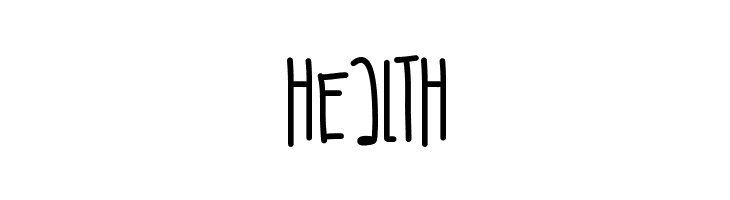
( Fonts by Des Gomez )
A playful, hand-drawn font with tall, narrow letters and a whimsical style.
( Fonts by Des Gomez )
A playful and casual handwritten font with smooth, rounded curves.
( Fonts by Des Gomez )
A playful, hand-drawn font with tall, narrow characters and a whimsical style.
( Fonts by Des Gomez )
A playful, casual handwritten font with a friendly vibe.
( www.foodonthewall.com )
A playful, casual handwritten font with fluid, connected strokes.
( Fonts by Des Gomez )
A playful, handwritten font with rounded edges and consistent stroke width.